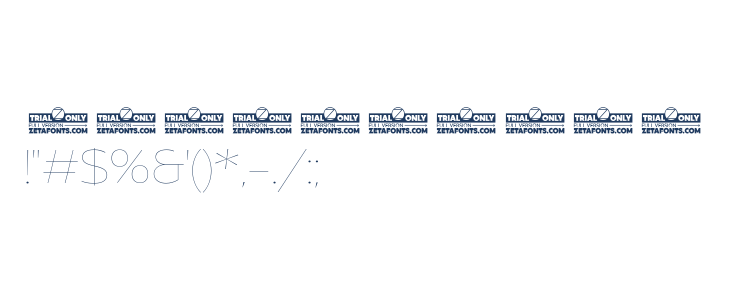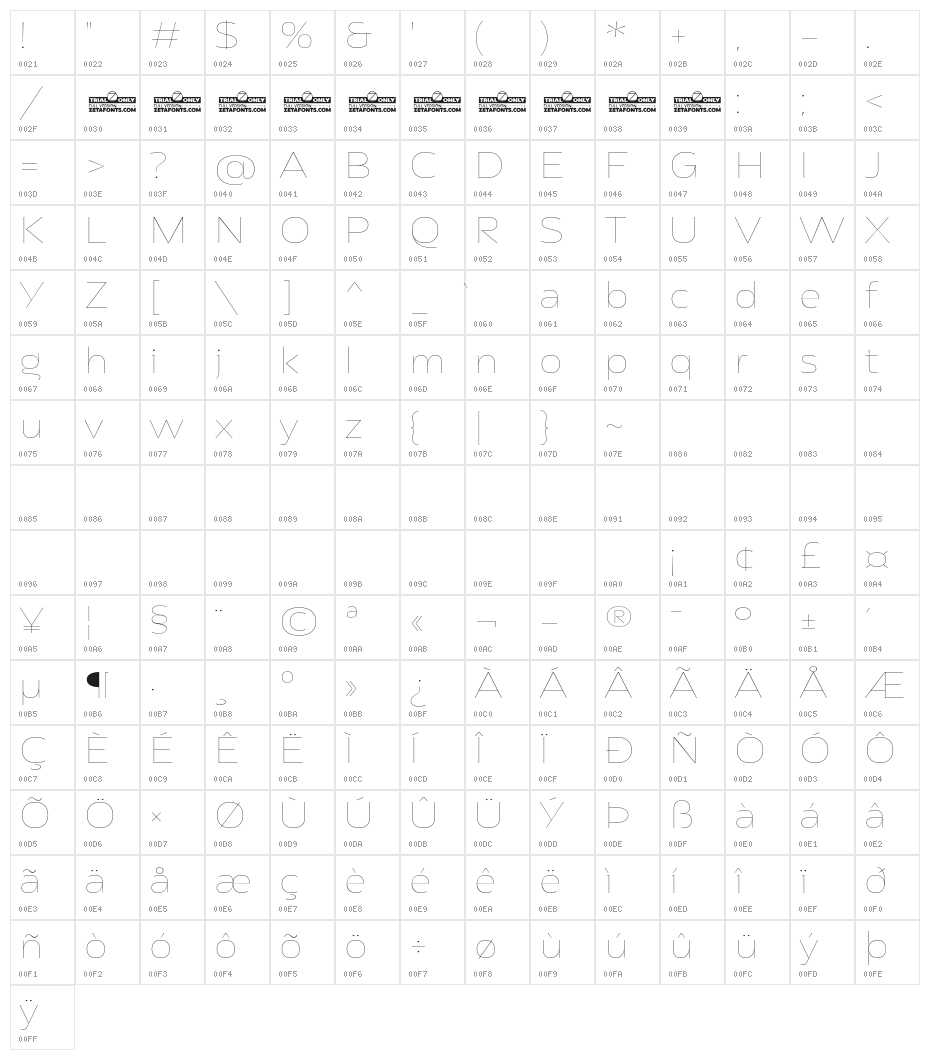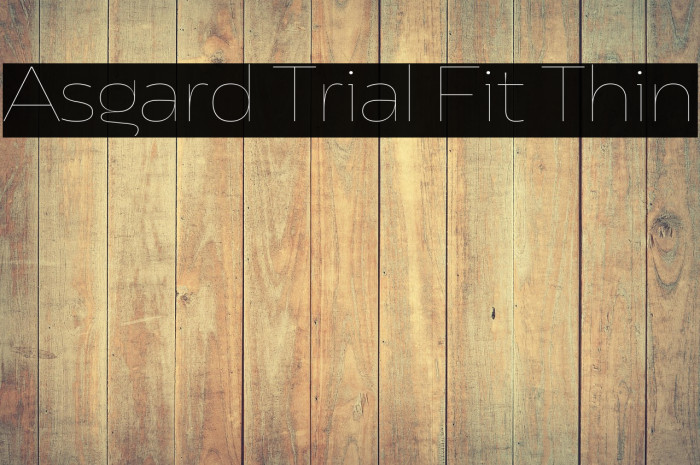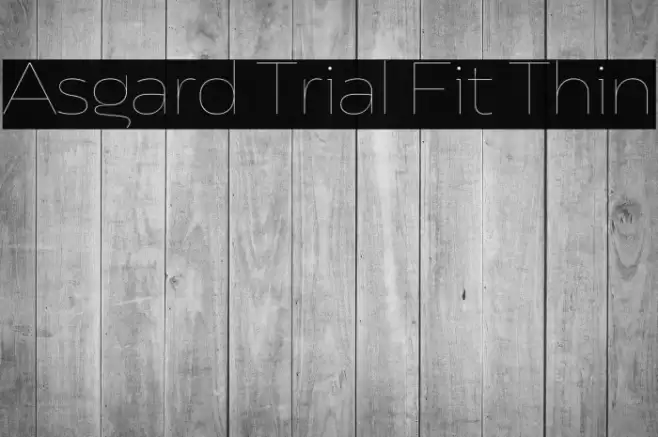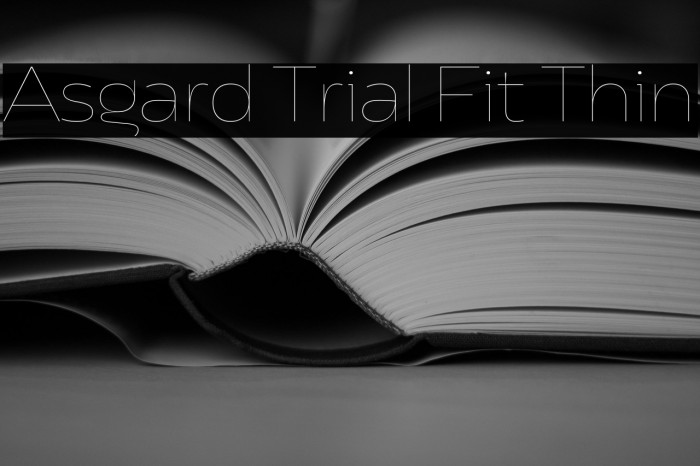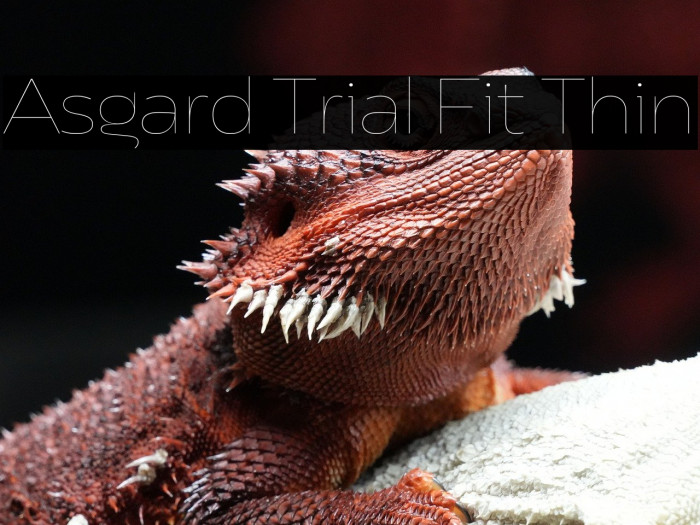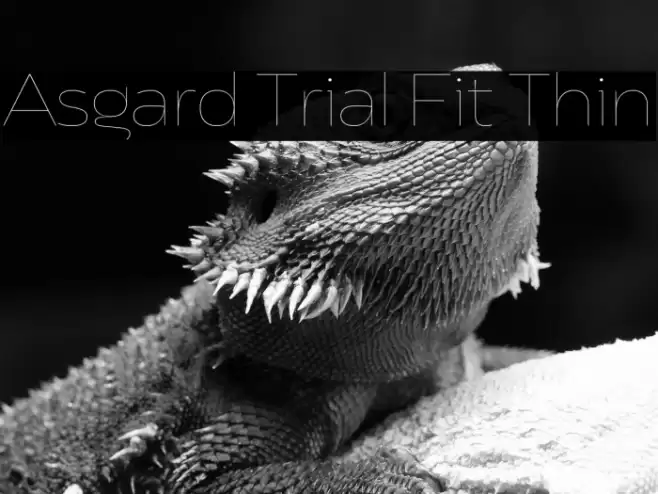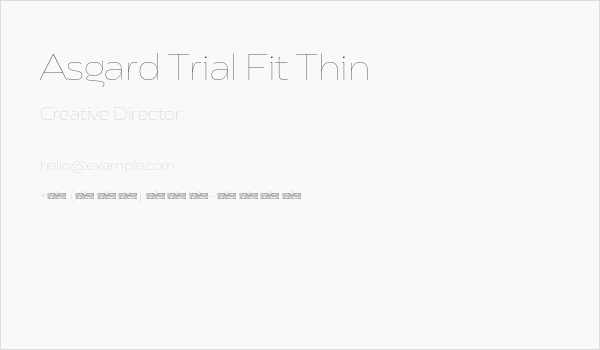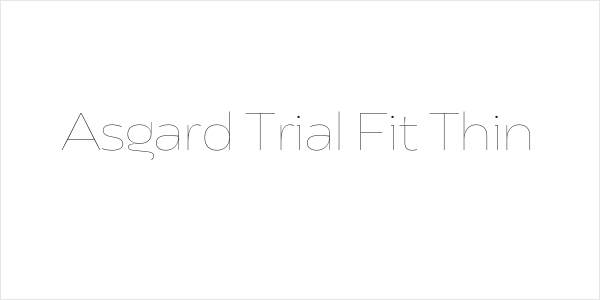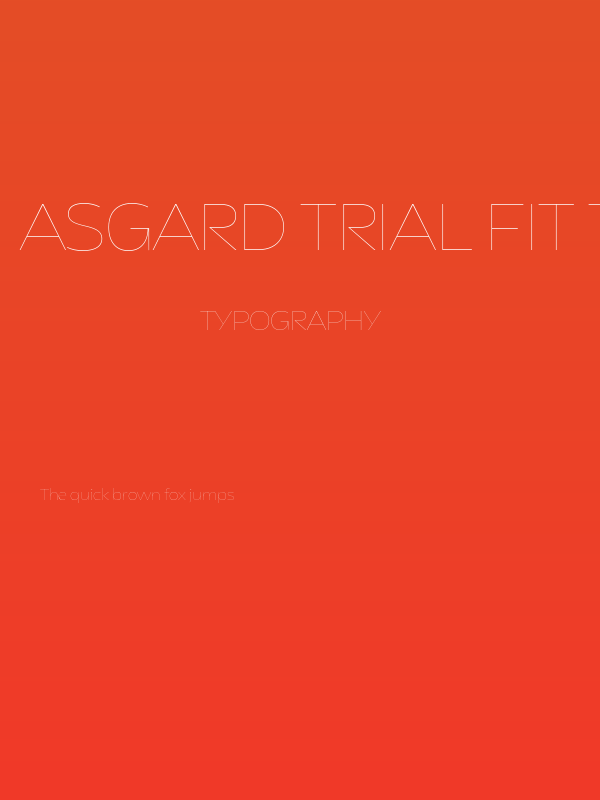
Asgard Trial Fit Thin Font
Asgard Trial Fit Thin Description
This font features a sleek, minimalist design with thin, elegant lines that create a modern and sophisticated appearance. The characters are evenly spaced, providing a clean and airy feel. The uppercase and lowercase letters maintain a consistent style, with smooth curves and sharp angles that enhance readability. The numerals and special characters are designed to complement the overall aesthetic, making this font versatile for various applications. Its simplicity and elegance make it suitable for contemporary design projects.
| Use Case | Headlines, Logos, Editorial design |
| Proposed Projects | Ideal for branding, editorial design, fashion magazines, and minimalist websites. |